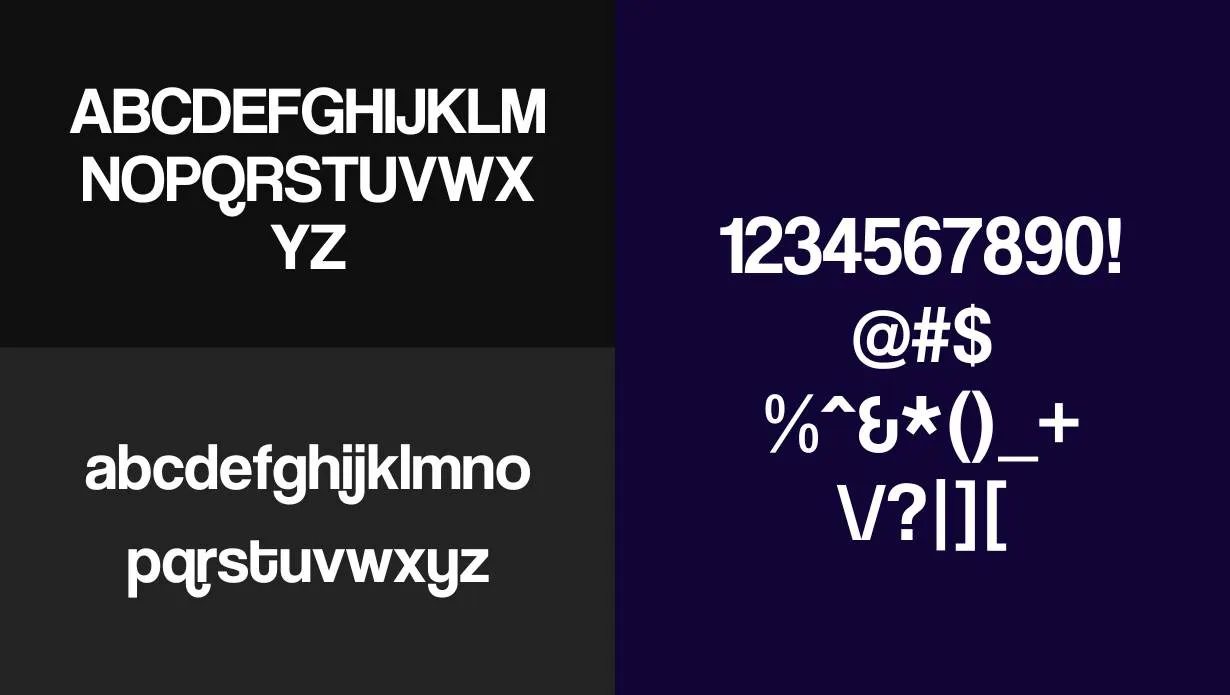
The Sans Serif font is a simple and clean typeface, lacking the decorative flourishes of serif fonts. Its technical details often include a balanced design with consistent stroke width, making it highly readable in both small and large sizes.
It’s commonly used for body text in various design projects due to its clarity and versatility across digital and print media. The font’s simplicity, combined with clean lines and minimal detailing, ensures ease of reading and a modern appearance.
| Name | Sans Serif Font |
| Designer | Dalton Maag |